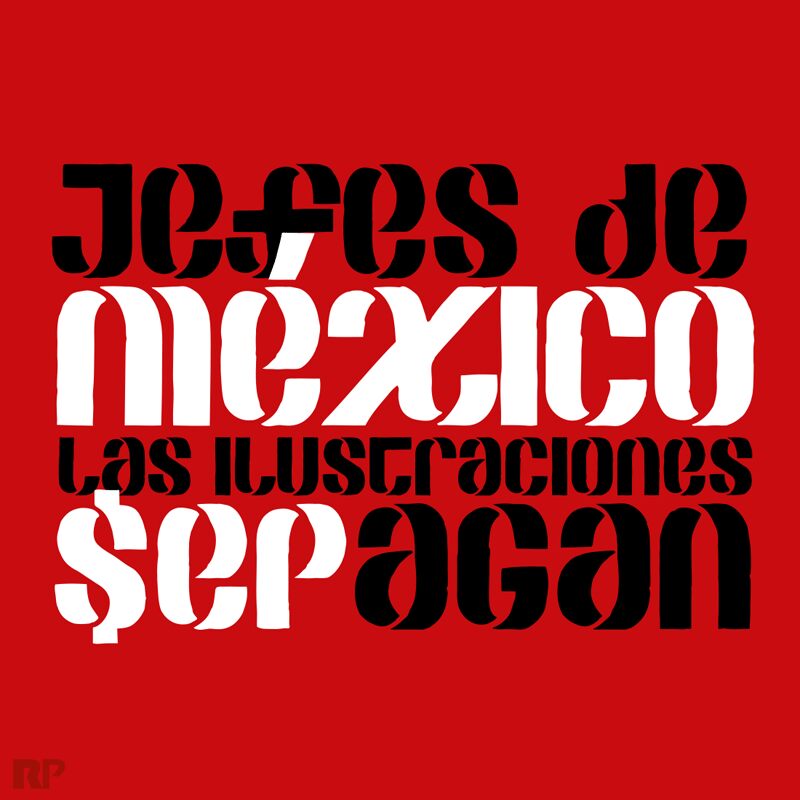
SEPAGAN is a unique display typeface designed by Raul Plancarte of Todayslogo.
SEPAGAN (as in SEP and [the illustrations] are paid for) is a typeface designed from the need to create awareness in the Mexican creative industry, regarding an open call released by the Public Education Secretariat, which invites the professionals to create illustrations to be published in the forthcoming 2021-2022 basic education textbooks, which are distributed free of charge and used in both public and private schools. In exchange of their graphic works, the Secretariat proposes to pay them only with a certificate, one printed exemplar and the authors credits. This invitation clearly shows the constant precarious work conditions and the low social value the institutions assign to the illustrators guild, and also to other visual artists.
This free font is inspired in the legendary former logo of the SEP, developed in 1977 by the designers Luis Almeida, JGP Y SV, at the DP SA studio. The rough edges (unfinished, unprofessional) of the characters constitute a visual analogy (or representation) of the strong disgust that the open call for illustrations caused. Also this visual treatment keeps distance with the original logo and emphasizes the ironic tone of this proposal. charge of the National Institute of Copyright should be one of the main champions in favor of the proper payment and recognition of the illustrators hard labor.
Traced by the Mexican typographer RP, the SEPAGAN digital typeface is born as a protest medium supporting this cause.